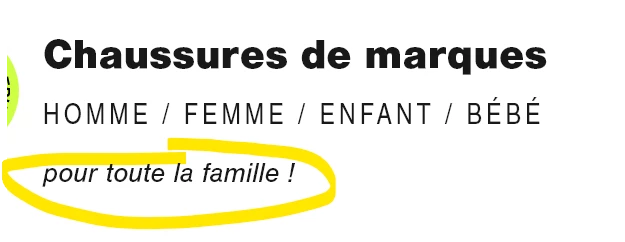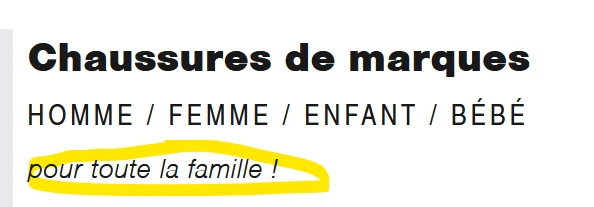
Adobe font appearing too light on website than on xd (readability issue)
I am using adobe fonts for a website. It's displayed fine on xd and my client was happy with it. But when I'm importing the font on my prestashop, it's way too light (the thickness is the same, 400, for the Nimbus Sans font). I send two screenshots : one for the Xd and the other for the website.
What can I do to improve this ? I can't switch to bold, it would be way too bold. I would very much appreciate any help.
Thanks for your patience. Is it happening with this Adobe font only or with all fonts? Have you tried using the other suggested browsers (Safari, Microsoft Edge, and Google Chrome) to see if it makes a difference? Also, try clearing the browser's cache and cookies, and let us know if that helps.
If that doesn't help, try disabling the third-party extensions on your browser and see if that makes any difference.
Thank you for the answer. It is happening only with adobe fonts, we have a web agency and I've never noticed that kind of issue with other fonts. I checked with other browsers with no difference, and I also cleaned the cache and tried without extensions.